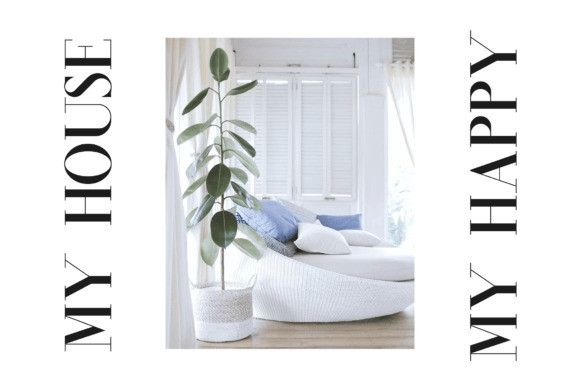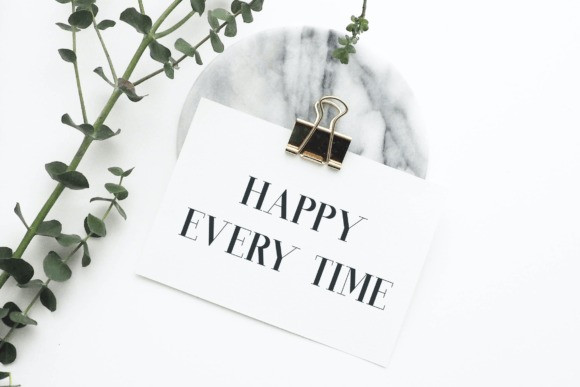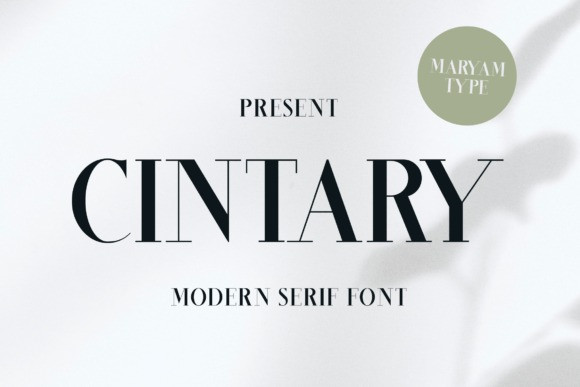
Cintary Font
Cintary Serif Font is a stylish and elegant serif font that has its own unique style and modern look. This typeface is perfect for logos, book or movie title designs, fashion brands, magazines, clothes, lettering, quotes, and so much more.